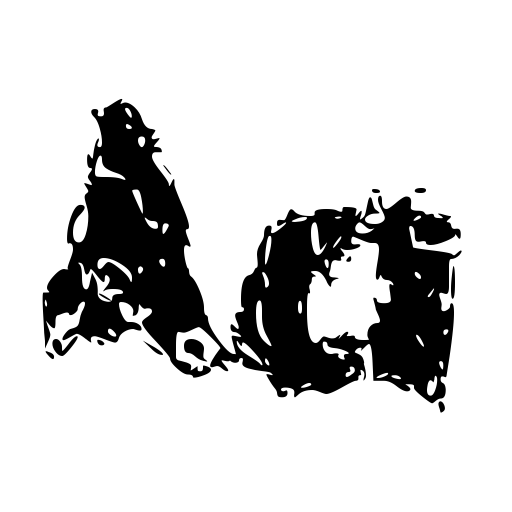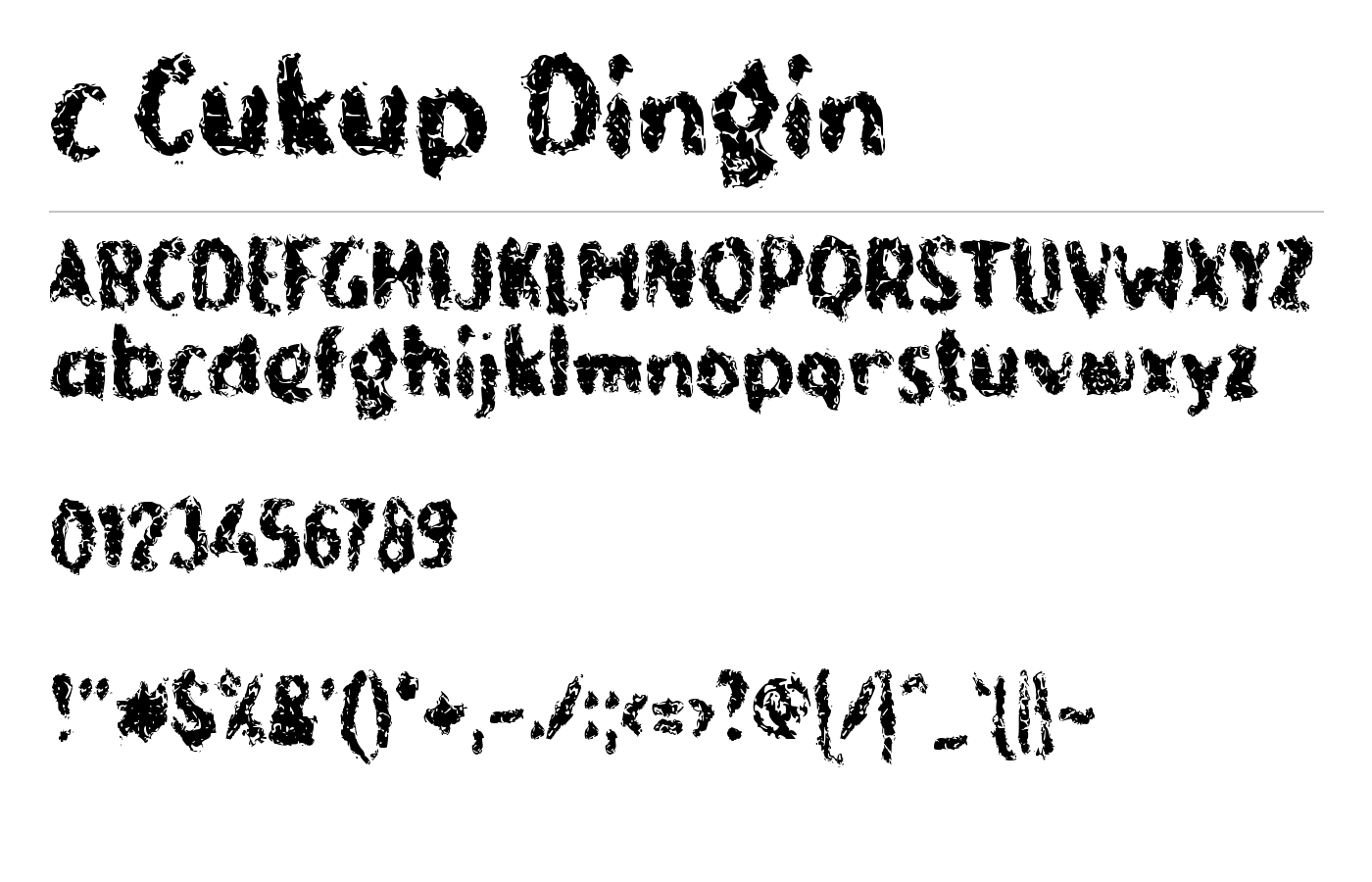
Cukup Dingin is a bold, textured sans serif font characterized by a rough, distressed style that gives it a dynamic and edgy appearance. Its irregular edges and dense weight make it ideal for creative, urban, or grunge-inspired designs where a strong visual impact is needed. This font works well in headlines, posters, and branding projects that aim to convey raw energy and artistic flair.
c Cukup Dingin Font